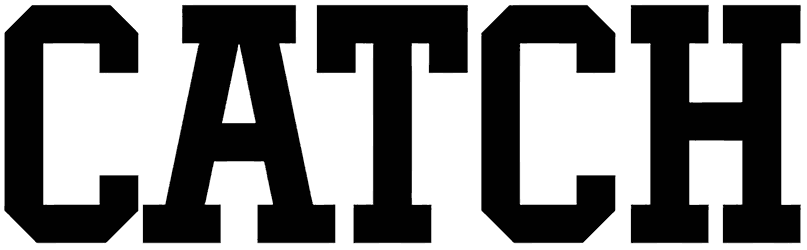
Get your hands on this distorted font and craft a seamless layout. The letters come in bold and heavy styles and fit logos, headlines, websites, and more of the same. Just remember that this thick font includes no lowercase characters. Give it a shot to see how amazing it appears. Need more? RB is always at your service.